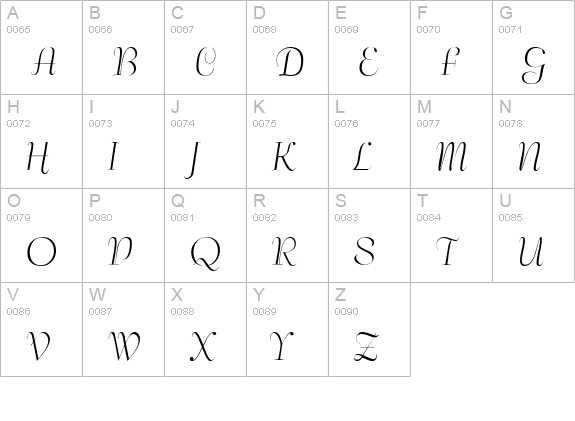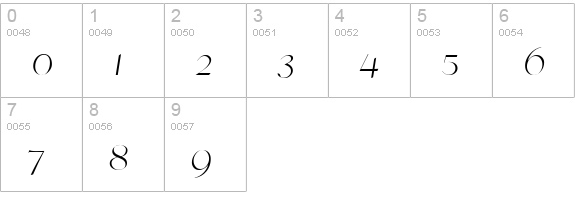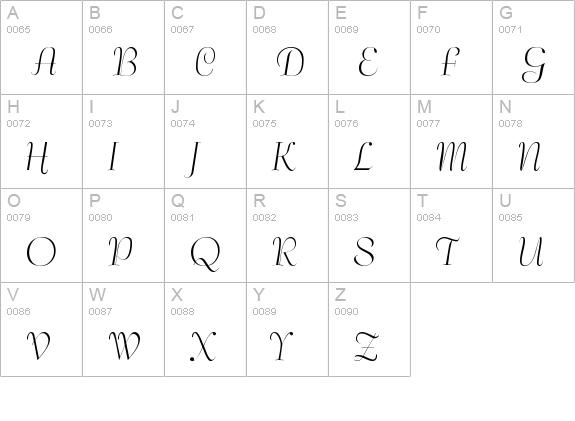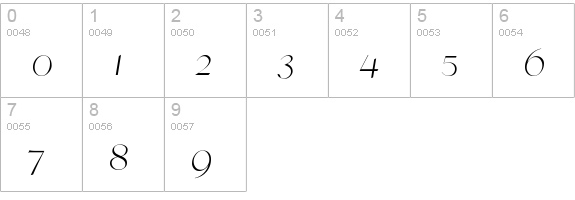
BernhardElegant-Regular is the standard, neutral variant in the BernhardElegant typeface family \xE2\x80\x94 well suited to general body text, paragraphs, and standard typographic work.
BernhardElegant-Regular font is a sophisticated and timeless typeface that exudes elegance and refinement. With its classic serifs and stylish curves, this font is perfect for adding a touch of class to any design project. Whether you're creating invitations, logos, or branding materials, BernhardElegant-Regular font will bring a sense of sophistication to your work. The best part? BernhardElegant-Regular font is completely free to download! You can easily access this stunning typeface at FontsMarket.com, where you can enjoy the beauty and versatility of BernhardElegant-Regular without any cost. Don't miss out on this opportunity to elevate your designs with the exquisite charm of BernhardElegant-Regular font. Download it today and add a touch of elegance to your creative projects.